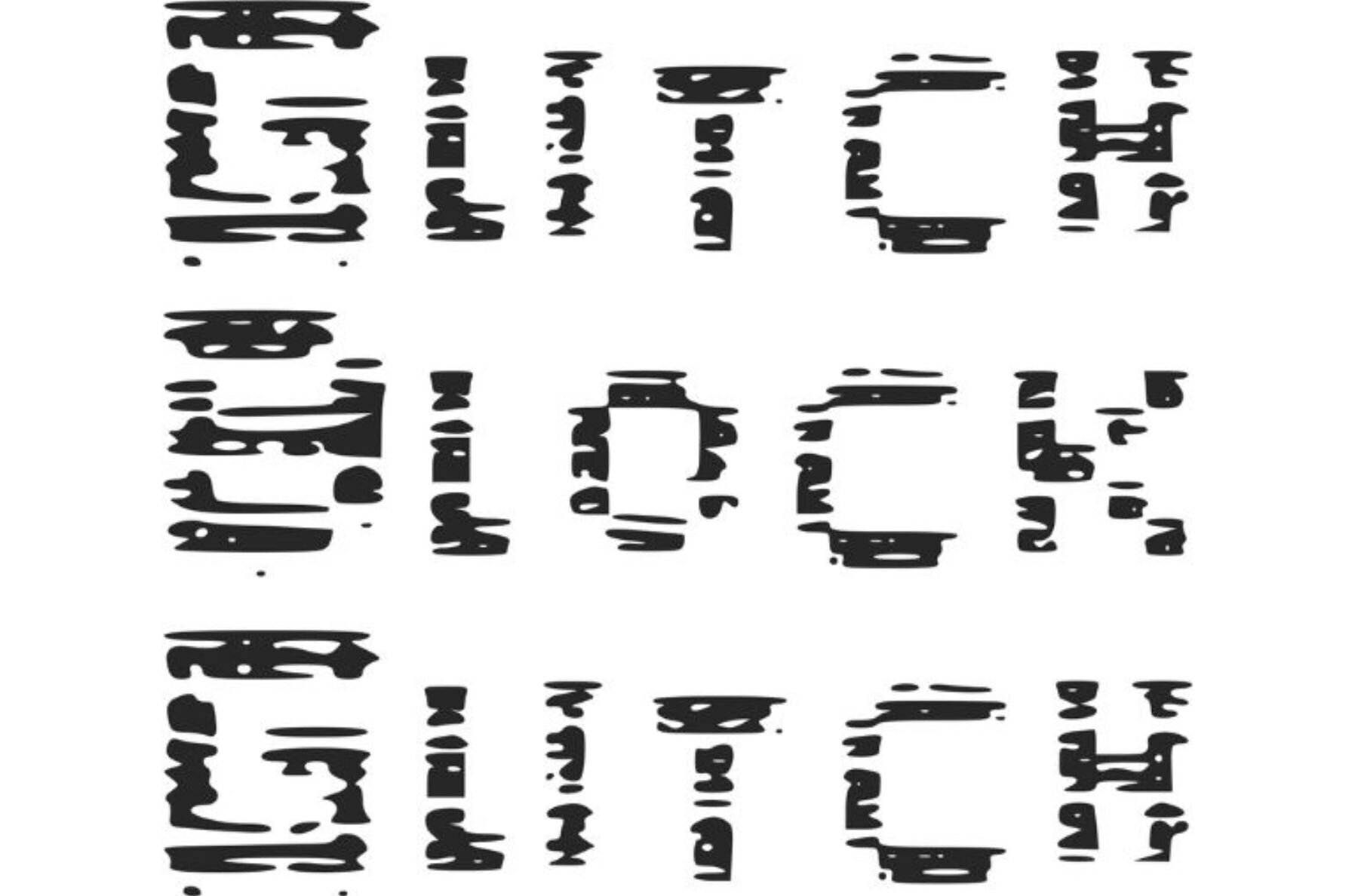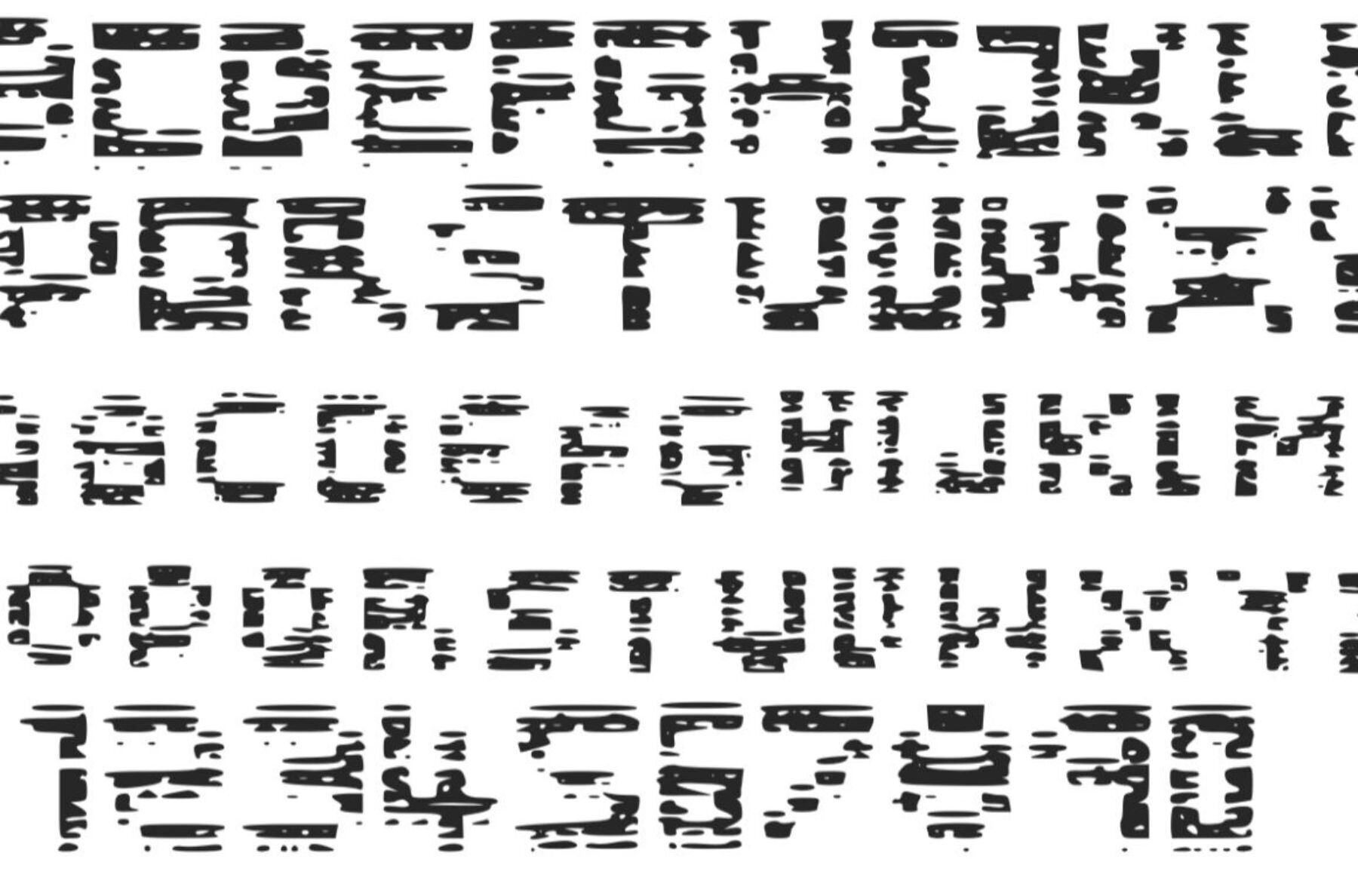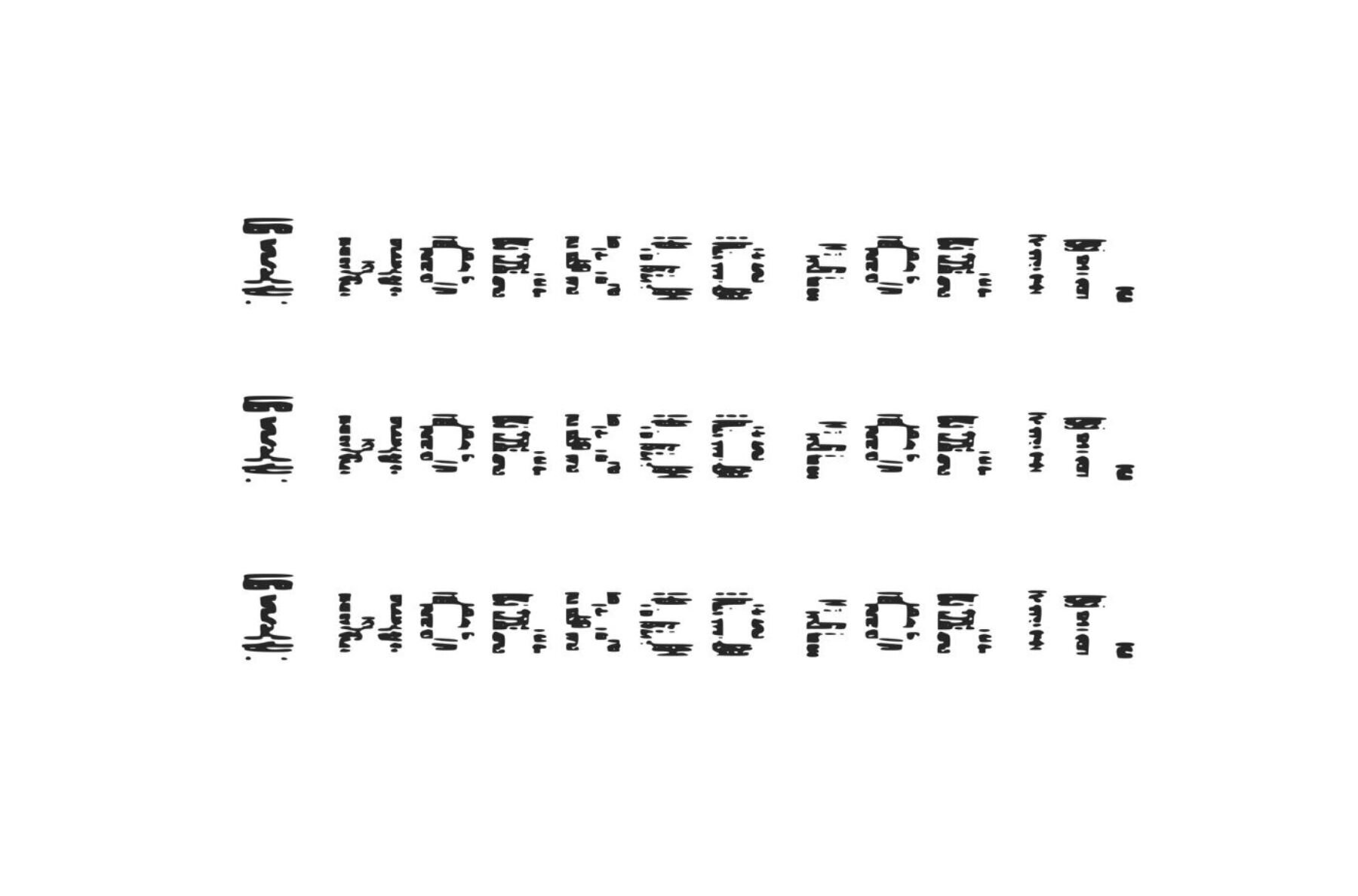
Glitch Block Glitch Font
Glitch Block Glitch
Embrace the captivating allure of glitch art with Glitch Block Glitch – a remarkable set of characters designed to infuse your projects with a fashionable, distorted aesthetic. Ideal for creative professionals seeking to experiment with unconventional design techniques, these characters are perfect for introducing a unique visual twist.Distorted Elegance with Glitch Block Glitch